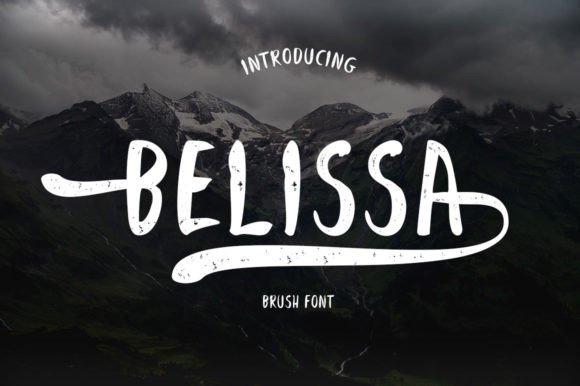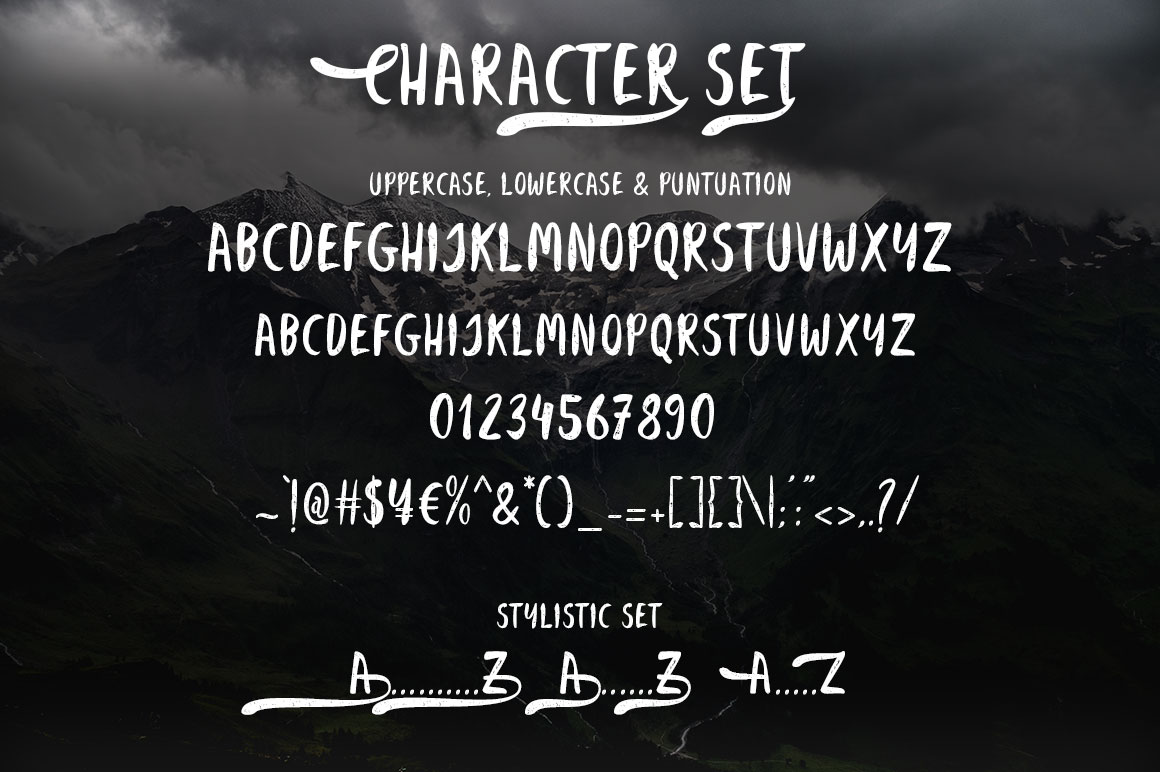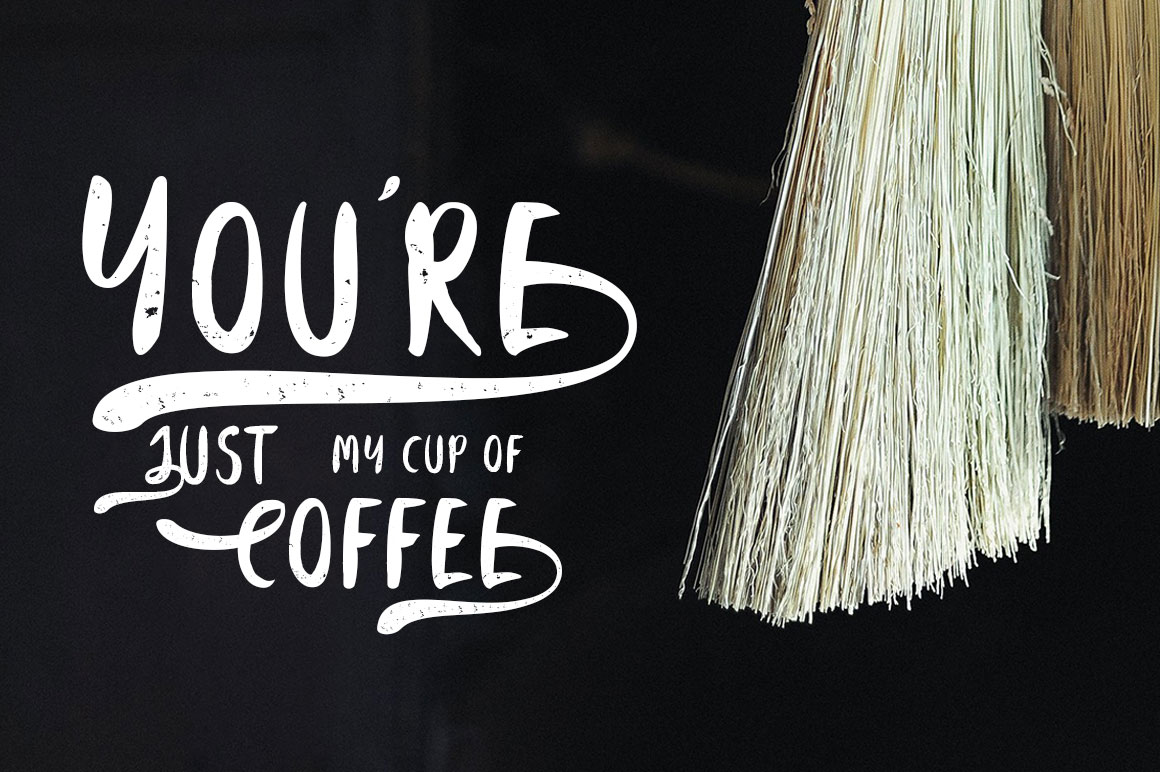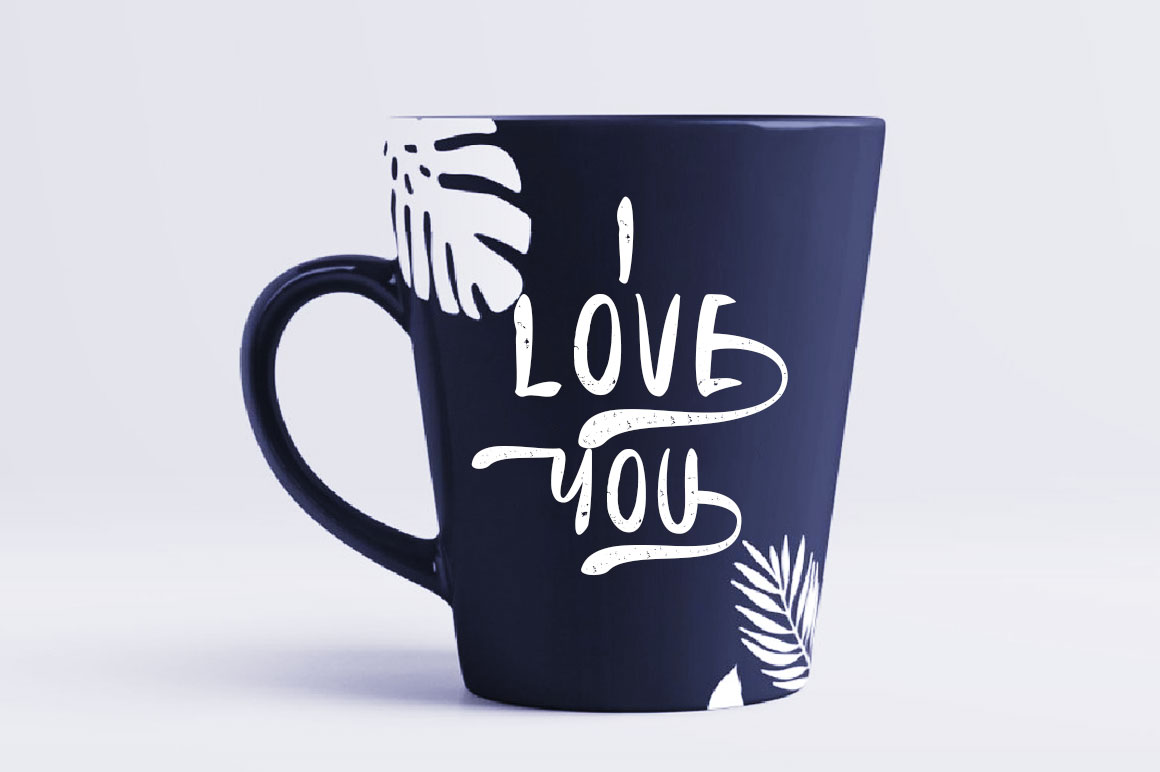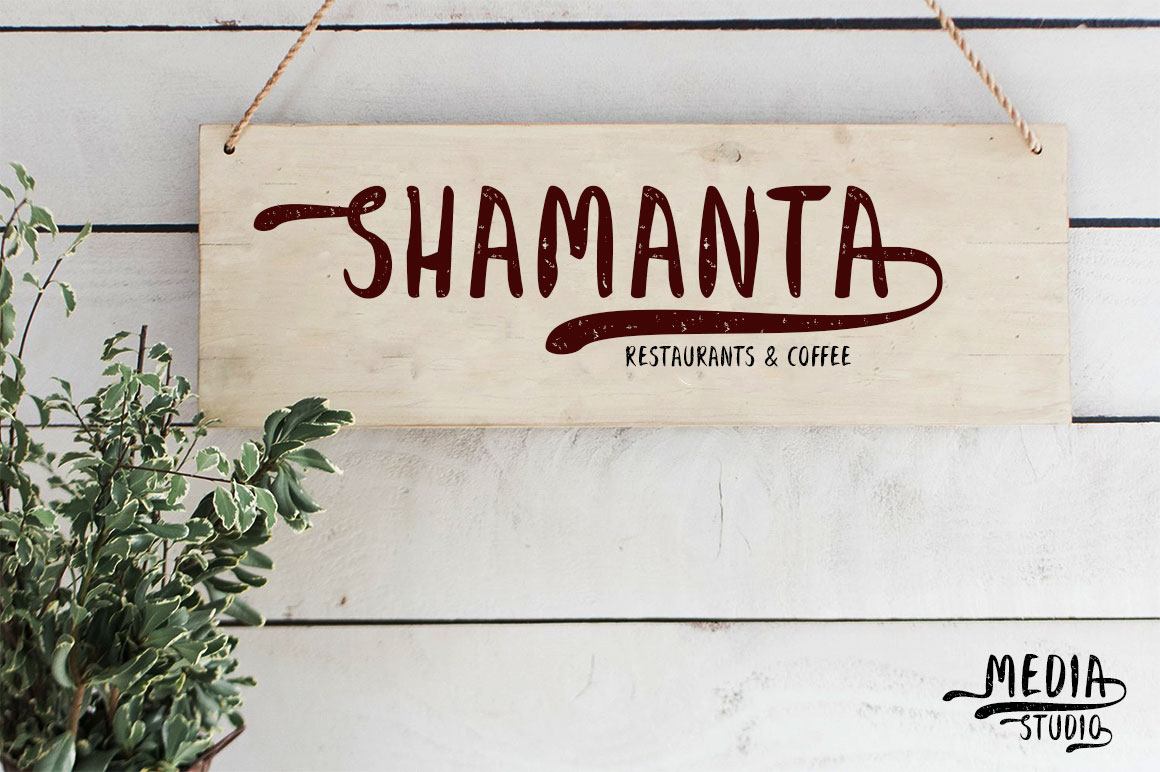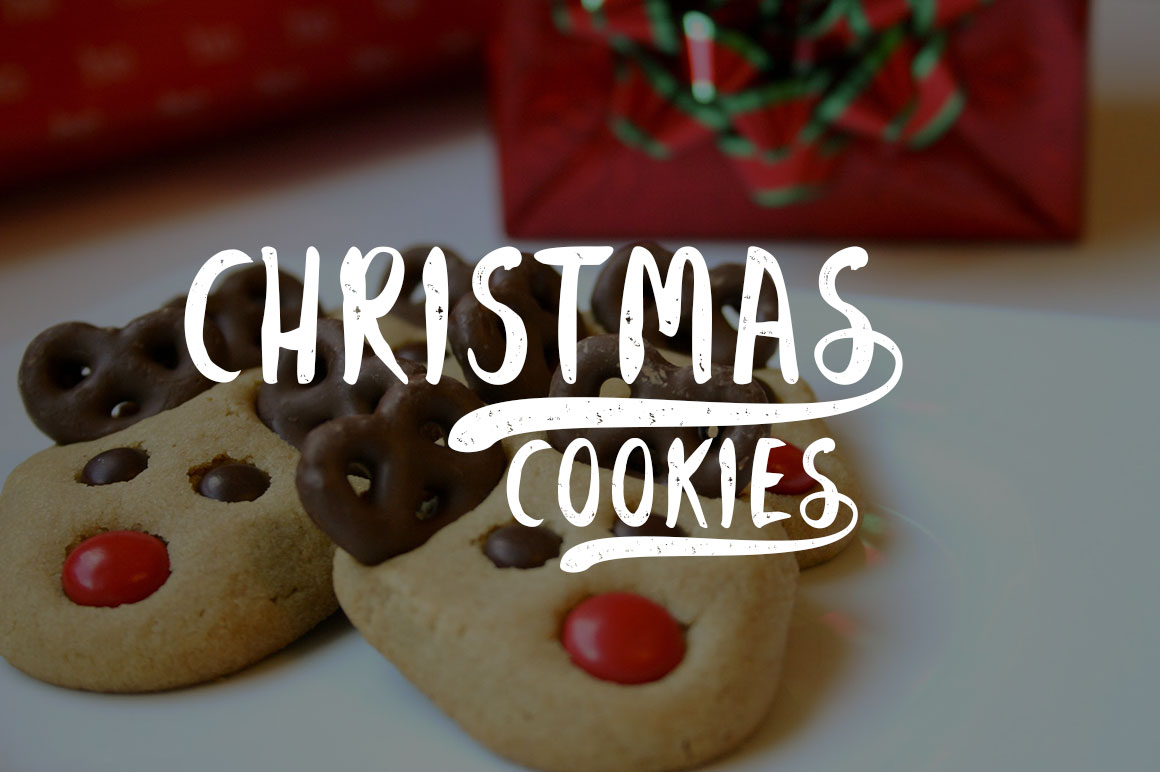
Media Studio Font
About Media Studio Font
Media Studio is a handwritten brush script made with love. Simple and elegant, it’s perfect to put personal nuances and care into whatever project you’re working on.